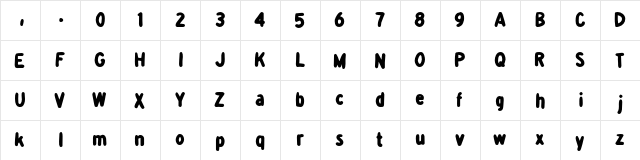
detourDork Regular
Design Context for detourDork Typeface
detourDork is a composed and adaptable typeface that performs quietly and consistently across a wide range of design contexts.